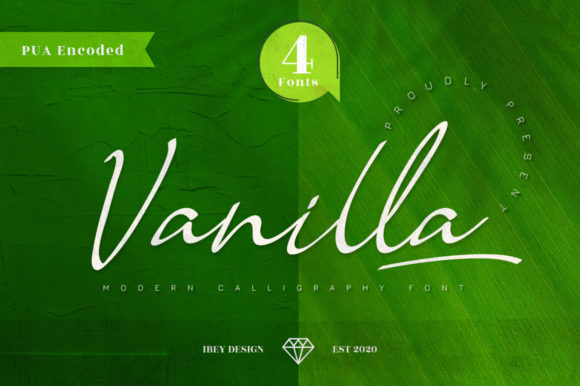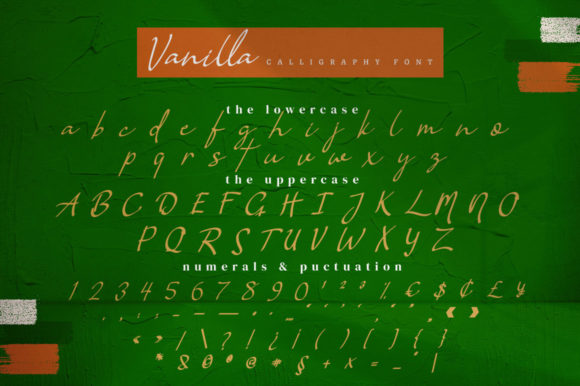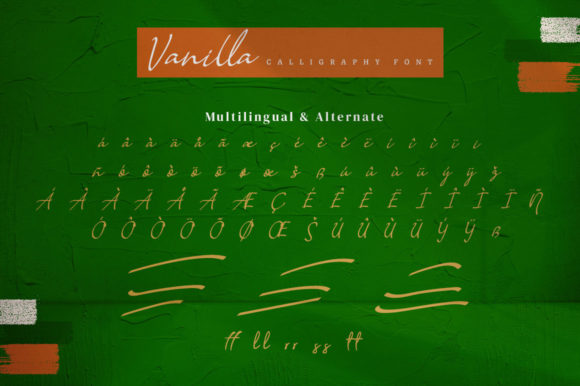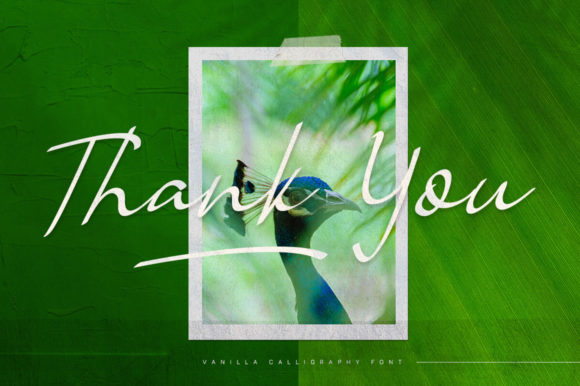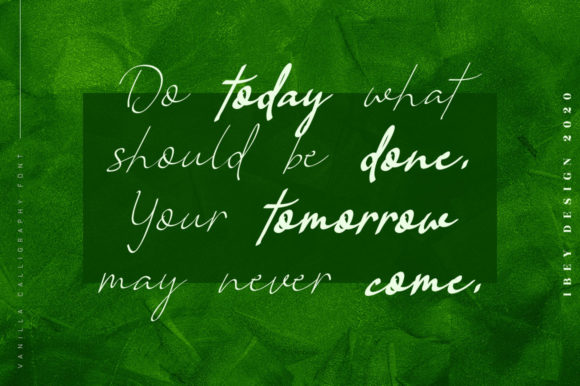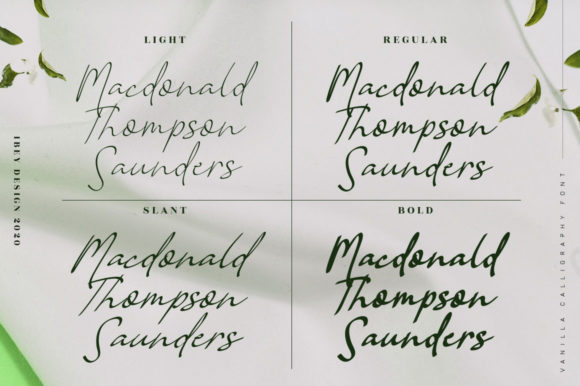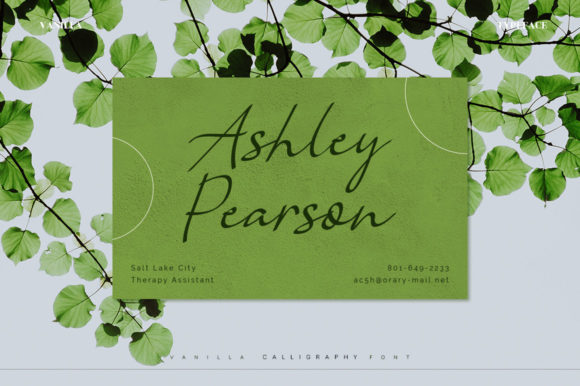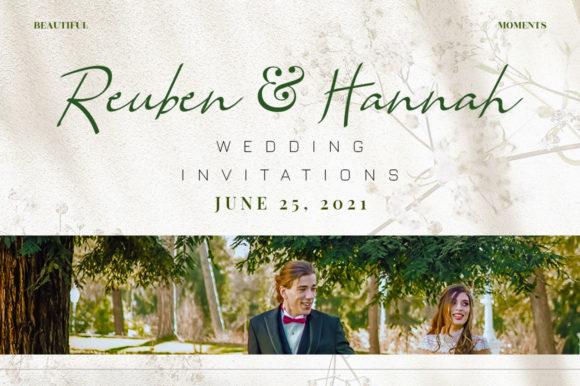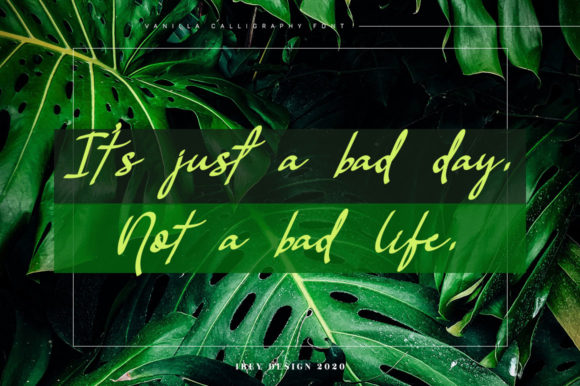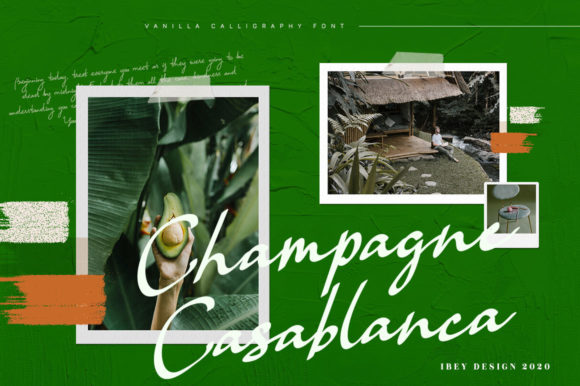
Vanilla Family Font
About Vanilla Family Font
The Vanilla is a fantastic, modern calligraphy font with a personal charm. With its four weights and a signature style, Vanilla is perfect for photography, watermarks, social media posts, advertisements, logos & branding, invitations, product designs, labels, stationery, wedding designs, product packaging, special events or anything that needs a calligraphy or handwriting taste.